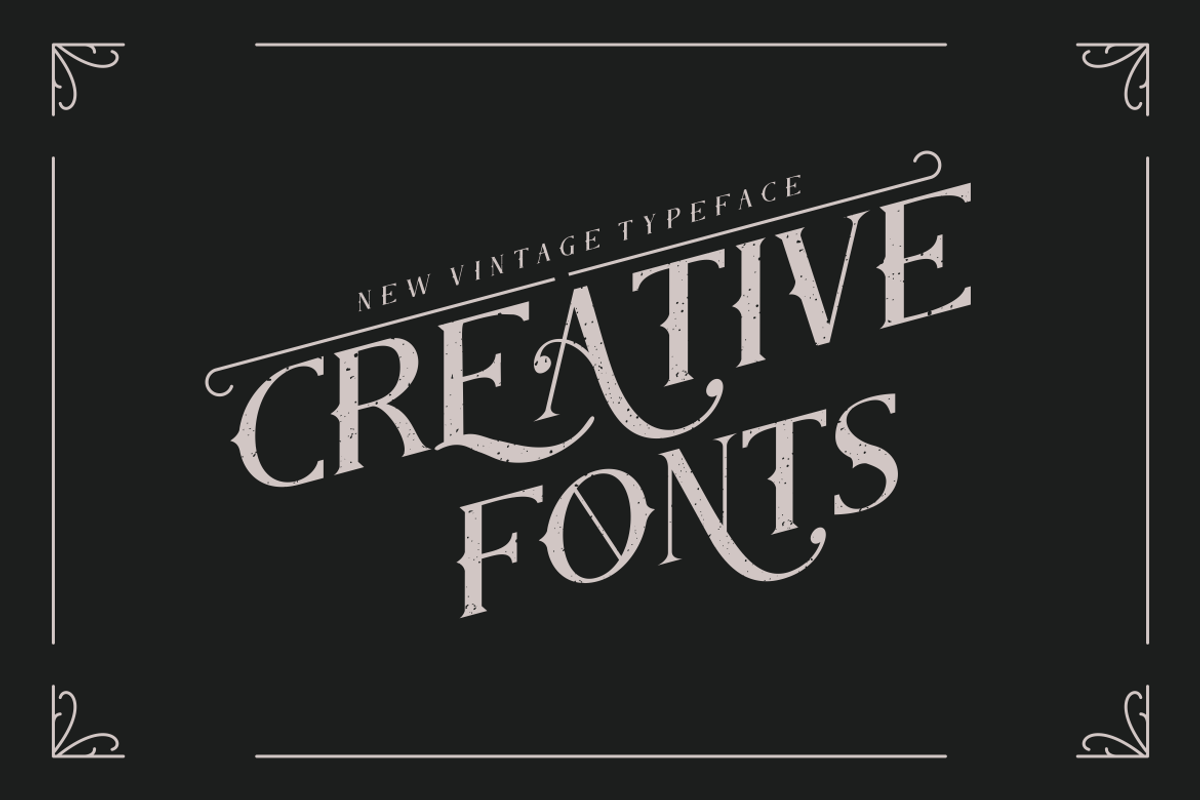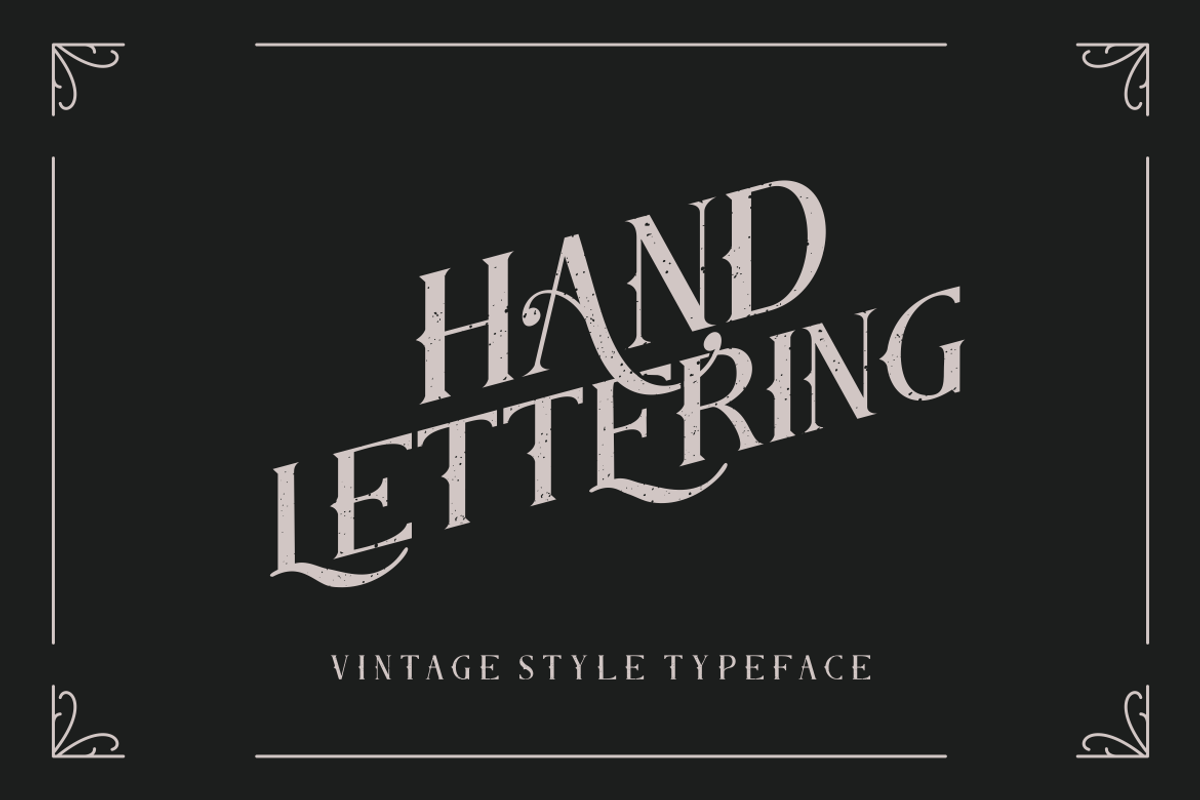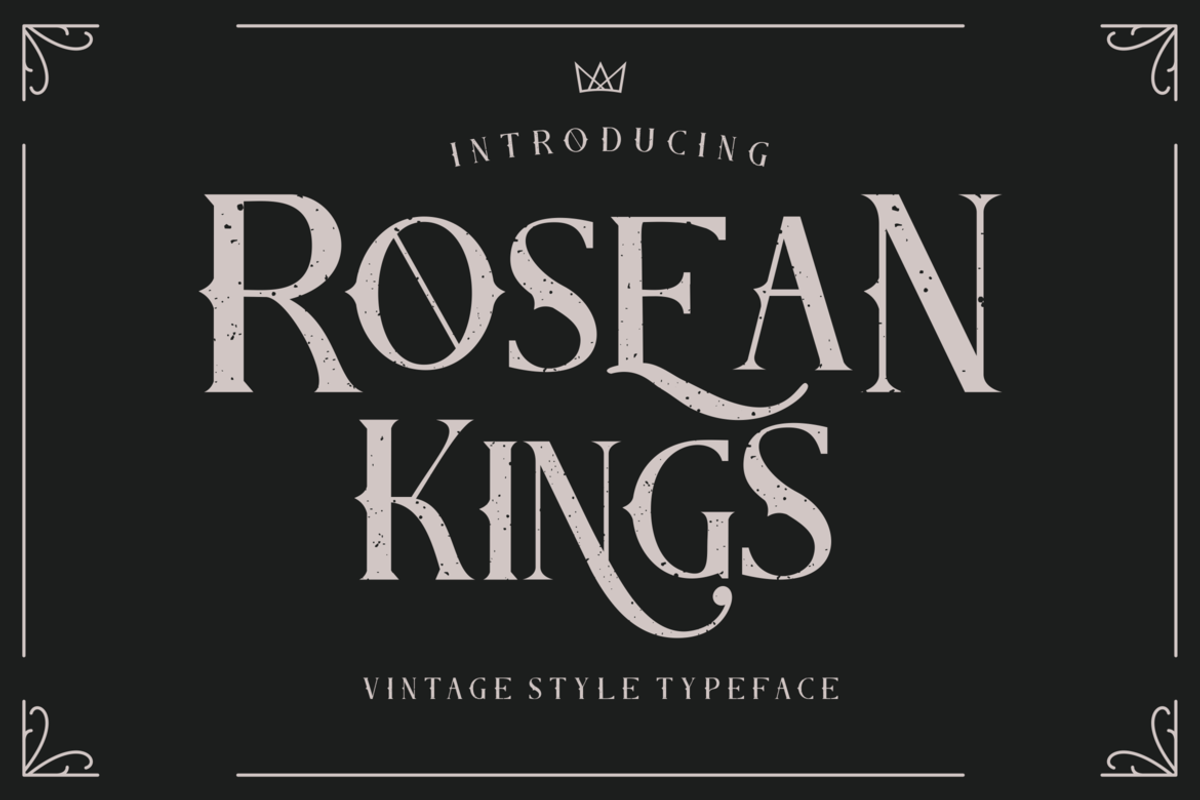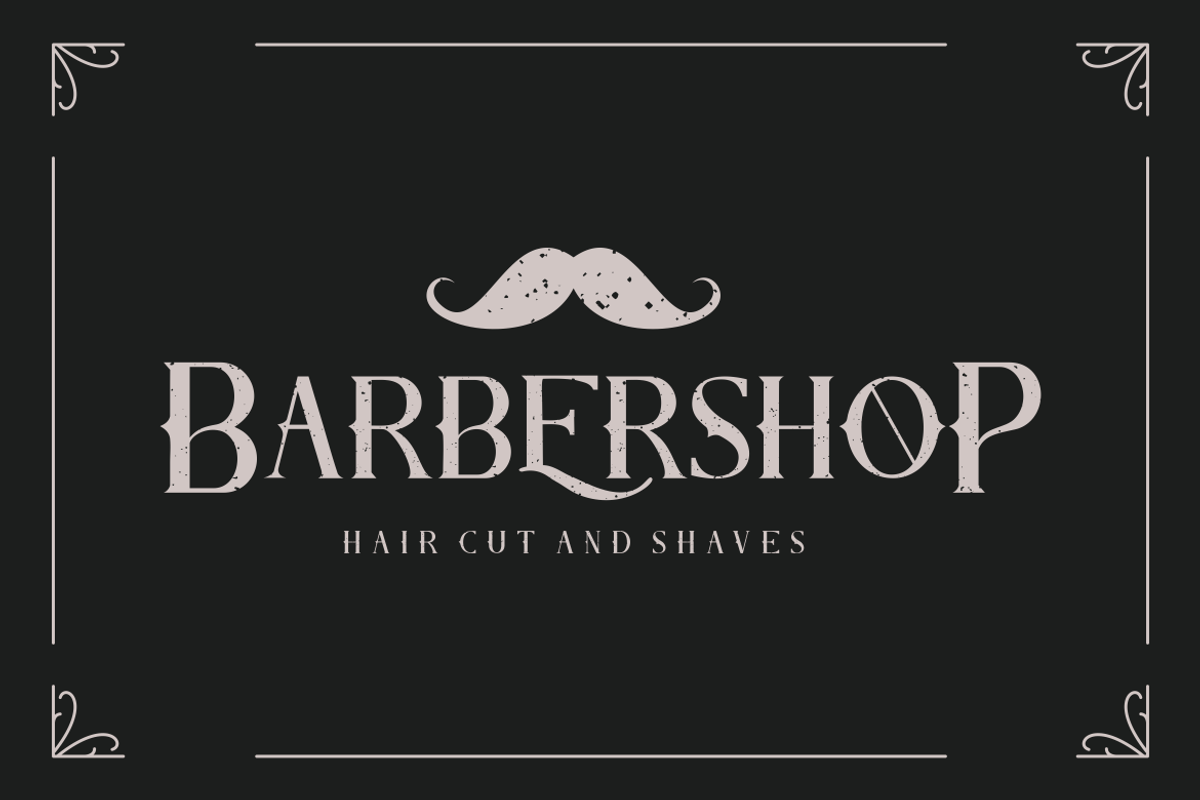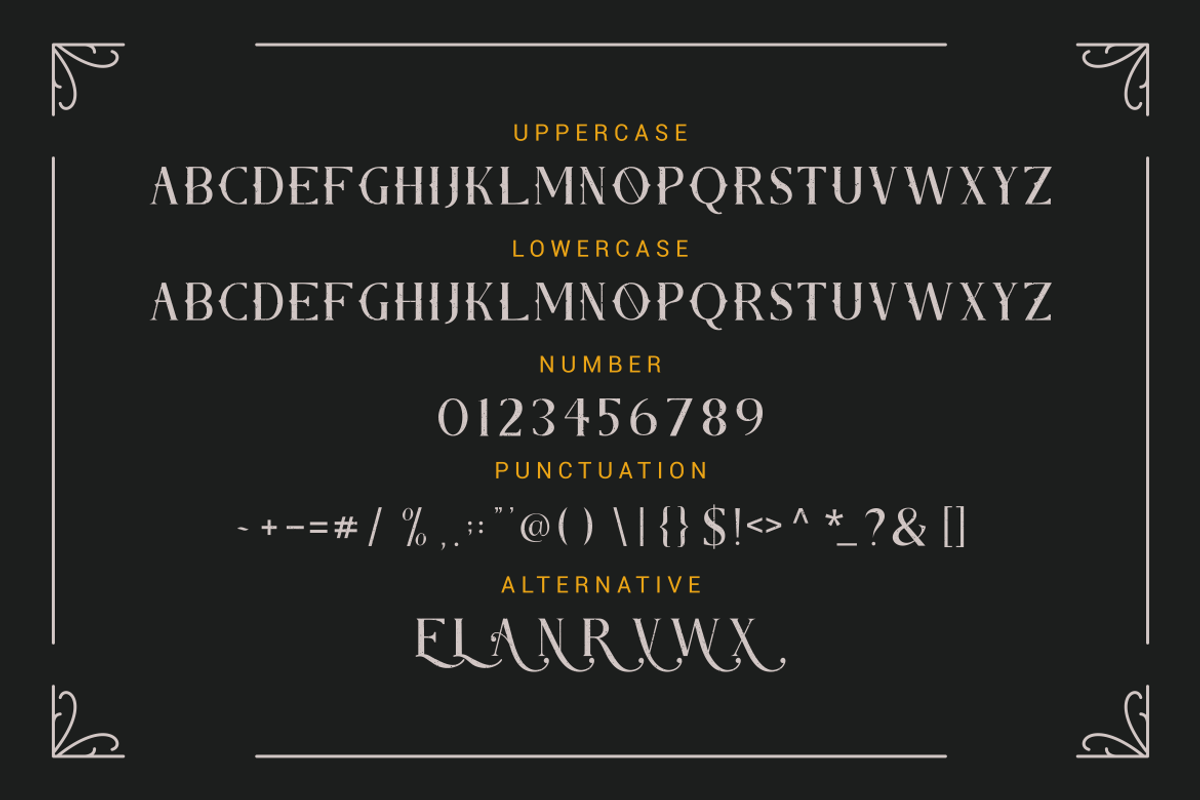
Rosean Kings Font
Presenting our new product Rosean Kings Font - Vintage Font is a bold and authentic display font. This font is perfect for any branding project such as logos, t-shirt printing, creative products, and more. extraordinary in a variety of contexts.